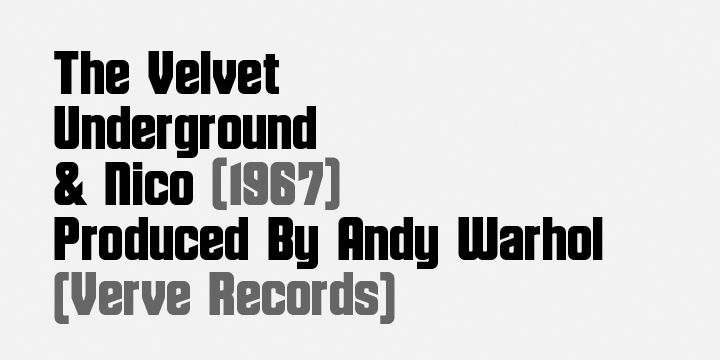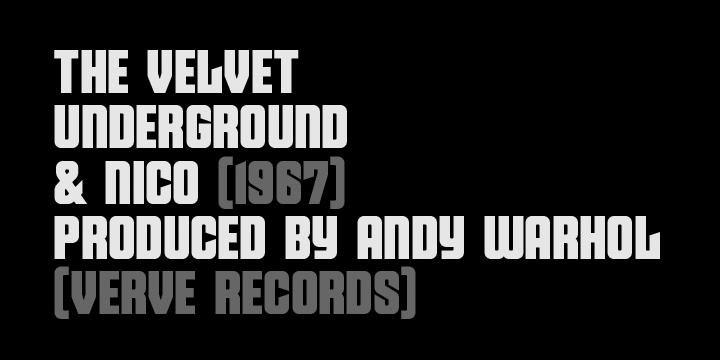
Velvet is a display font family. This typeface has two styles and was published by AE Type Inc.
Velvet is a heavy rounded block retro face inspired by the typeset album cover of the protopunk rock band The Velvet Underground’s debut.
Stylistically, Velvet’s extreme angled terminals exude a sense of tension and irreverance, contrasting the smooth rounded block letter forms.